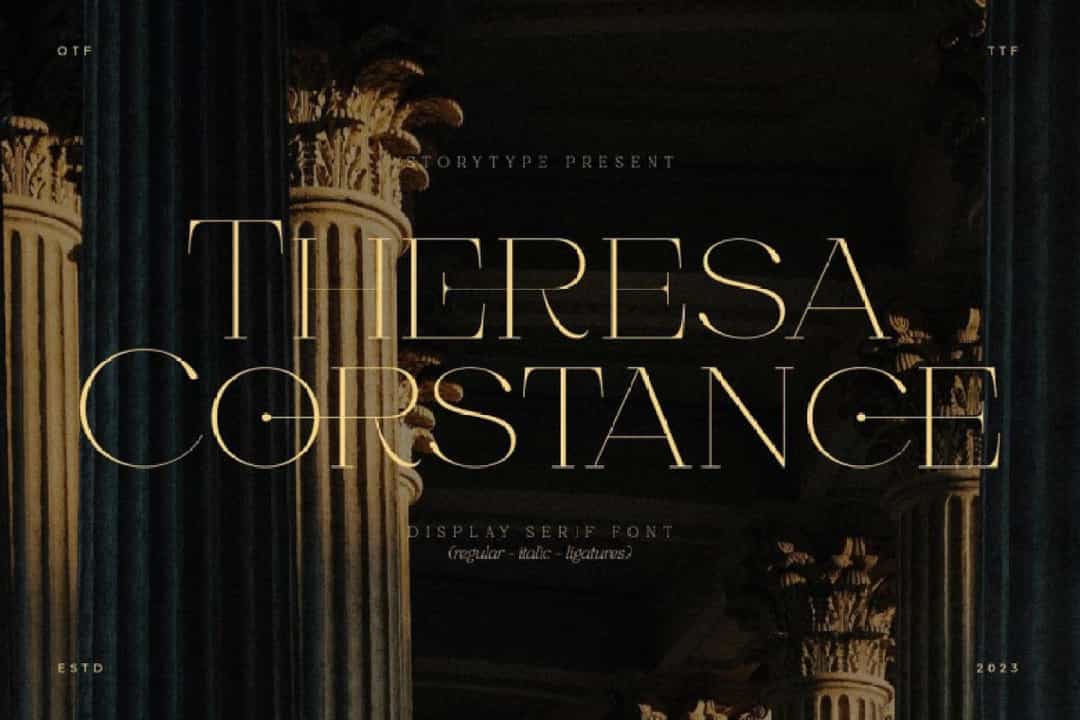
Theresa Corstance Font, developed by Storytype, is a classic yet modern serif typeface with its own distinct style and modern appearance, perfect for sophisticated logo designs, movie or book name designs, clothing brand names, magazine letters, quotes and much more.